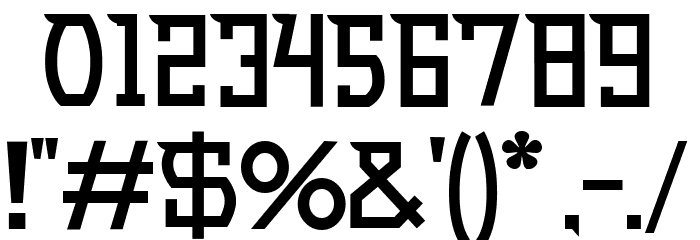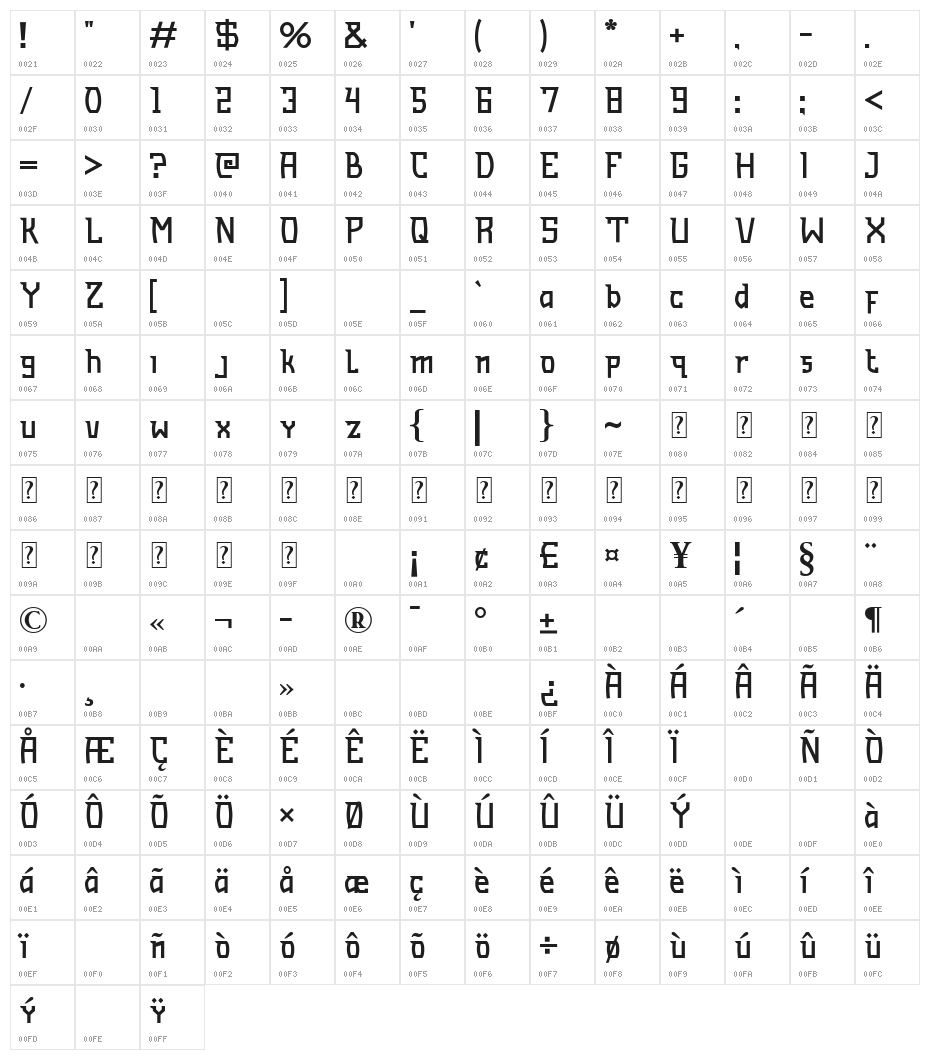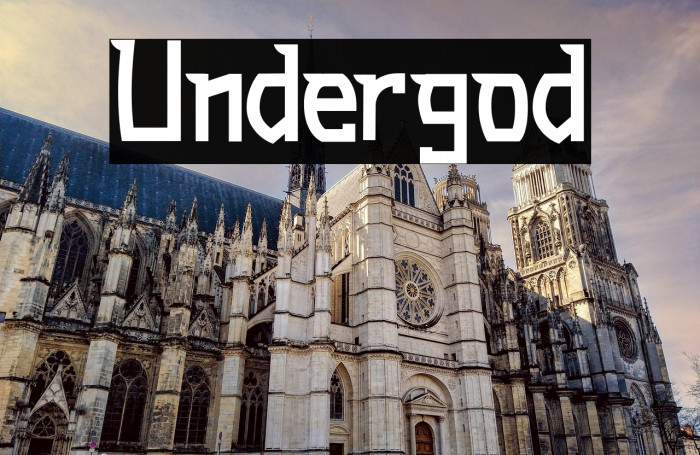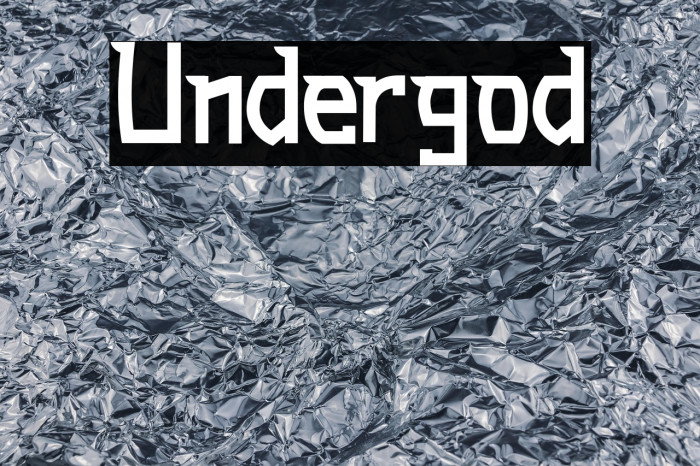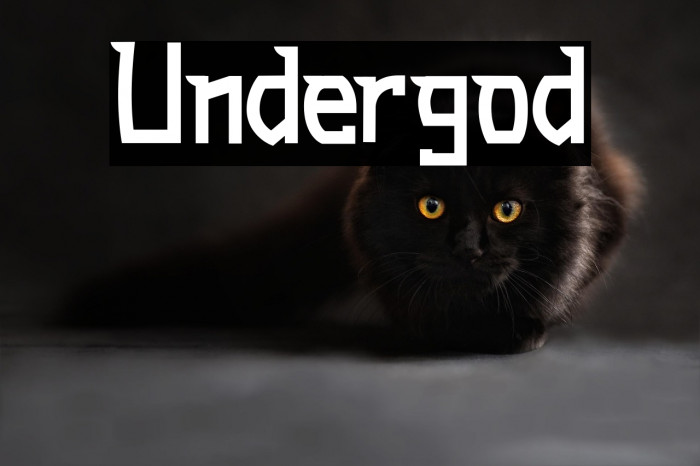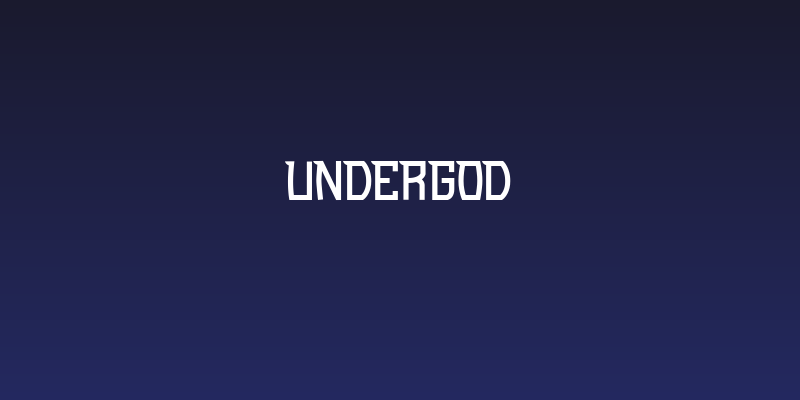
Undergod Font
This font features a bold and geometric style with sharp angles and a modern aesthetic. The uppercase letters are uniform in height, creating a cohesive look, while the lowercase letters maintain a similar structure with slight variations for readability. The numerals are distinct and align well with the overall design, providing a consistent appearance across all characters. Special characters are integrated seamlessly, enhancing the font's versatility. The font's strong lines and unique shapes make it stand out, suitable for projects that require a contemporary and edgy feel.
A bold, geometric font with sharp angles and a modern look.
- Proposed Projects: Ideal for branding, posters, headlines, and digital media that require a strong visual impact.